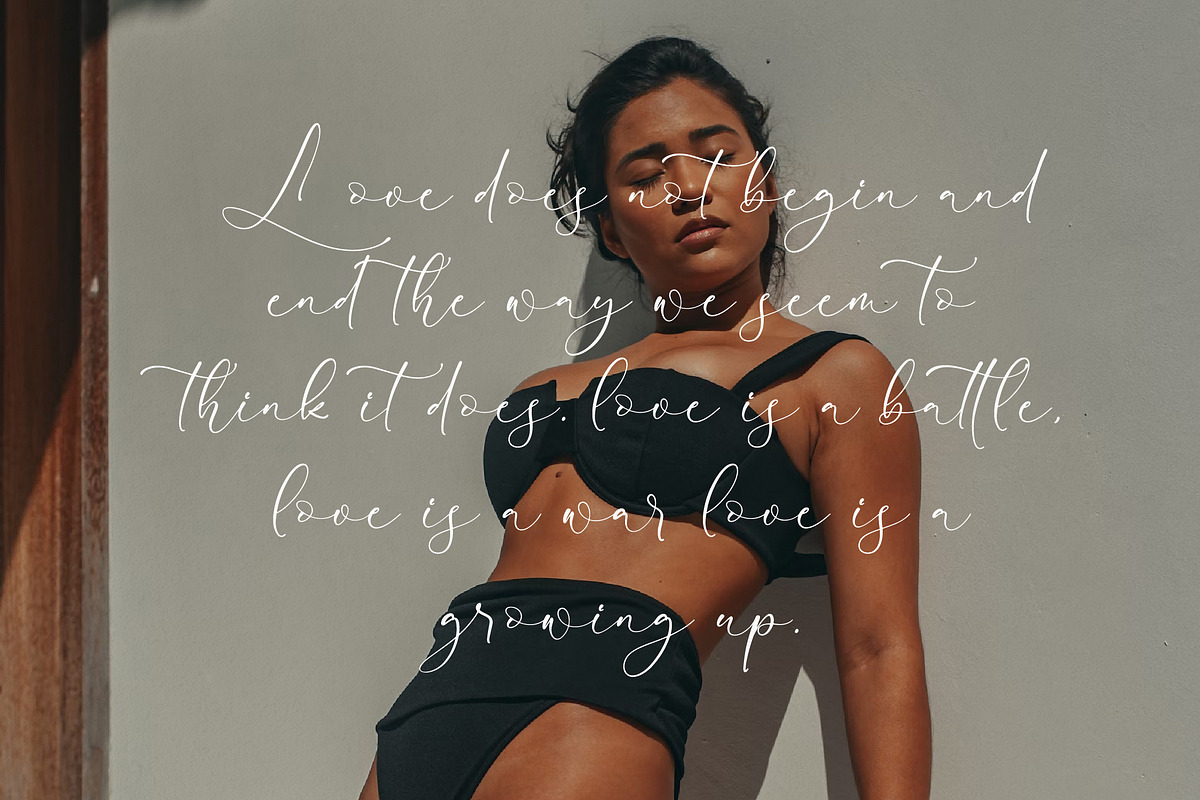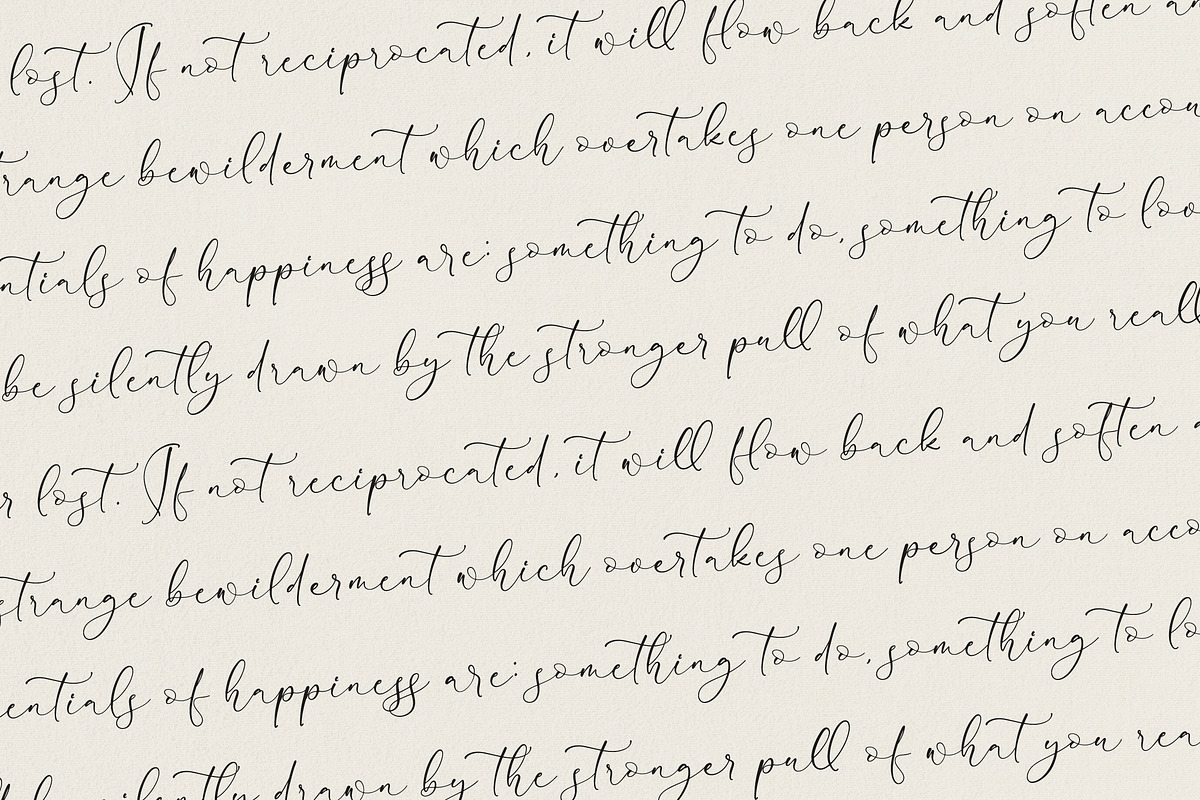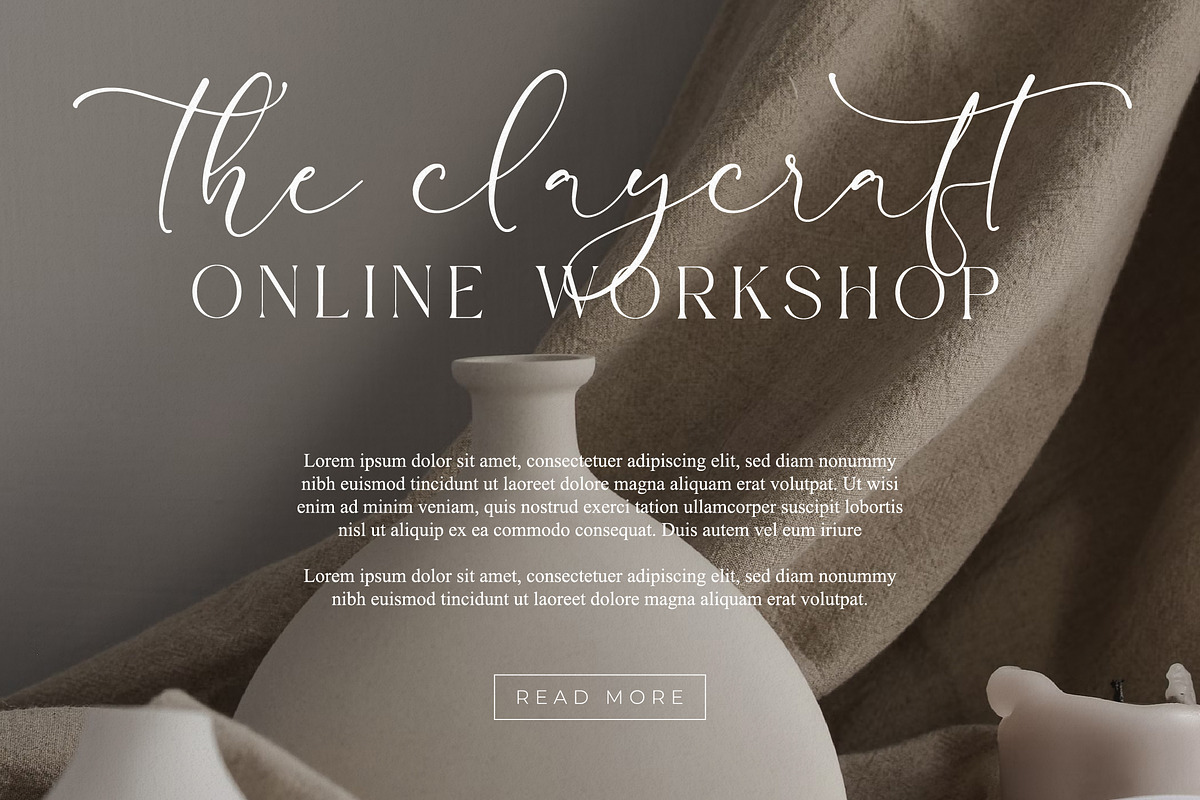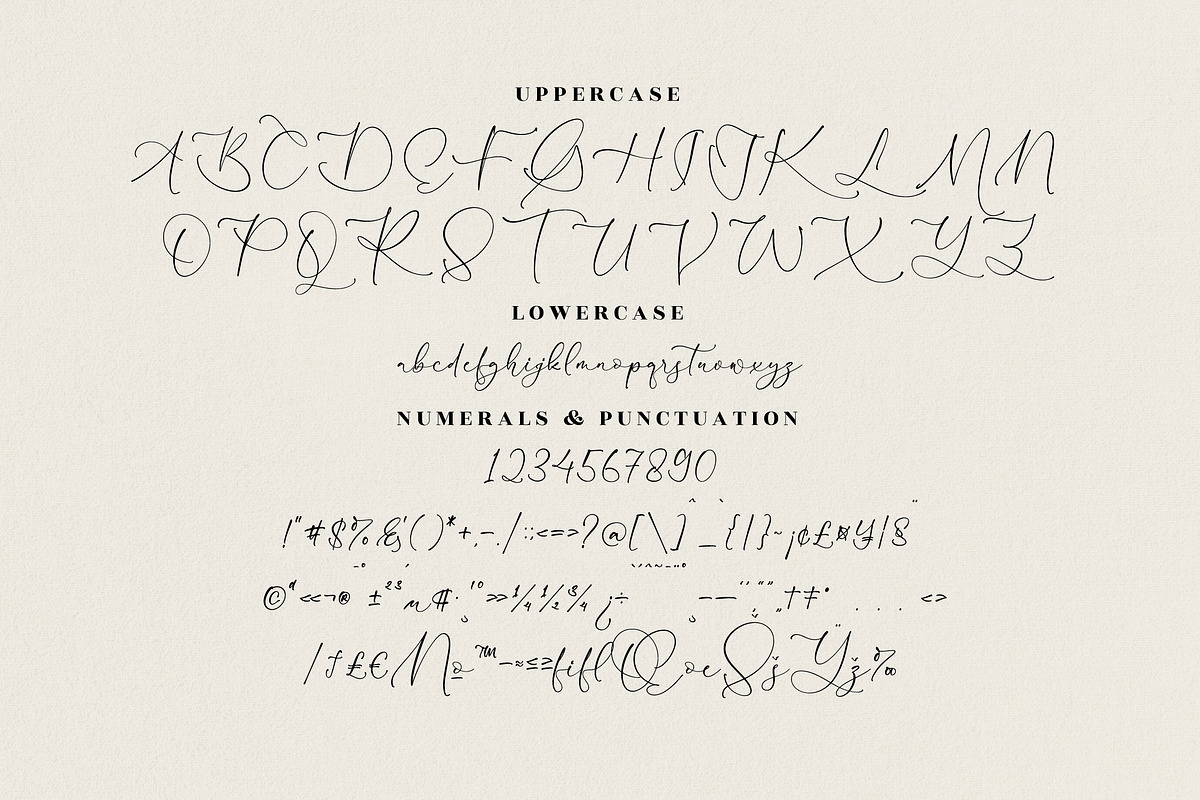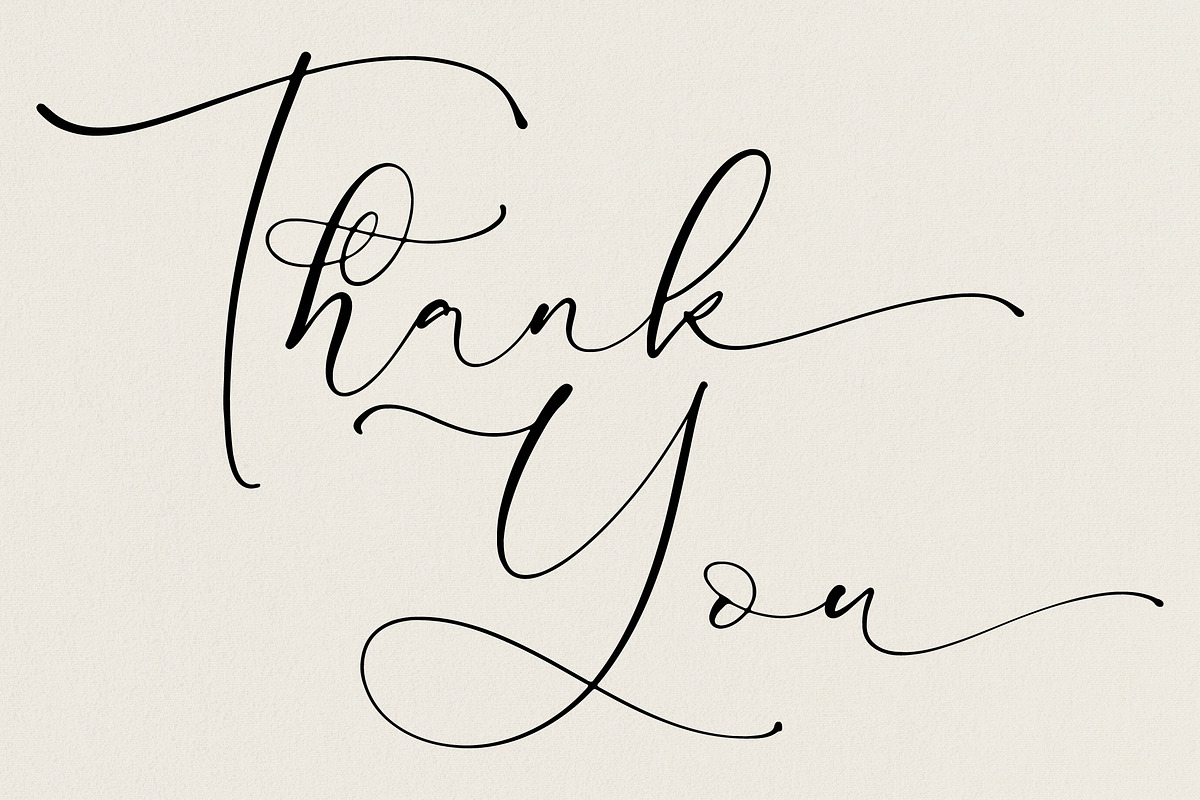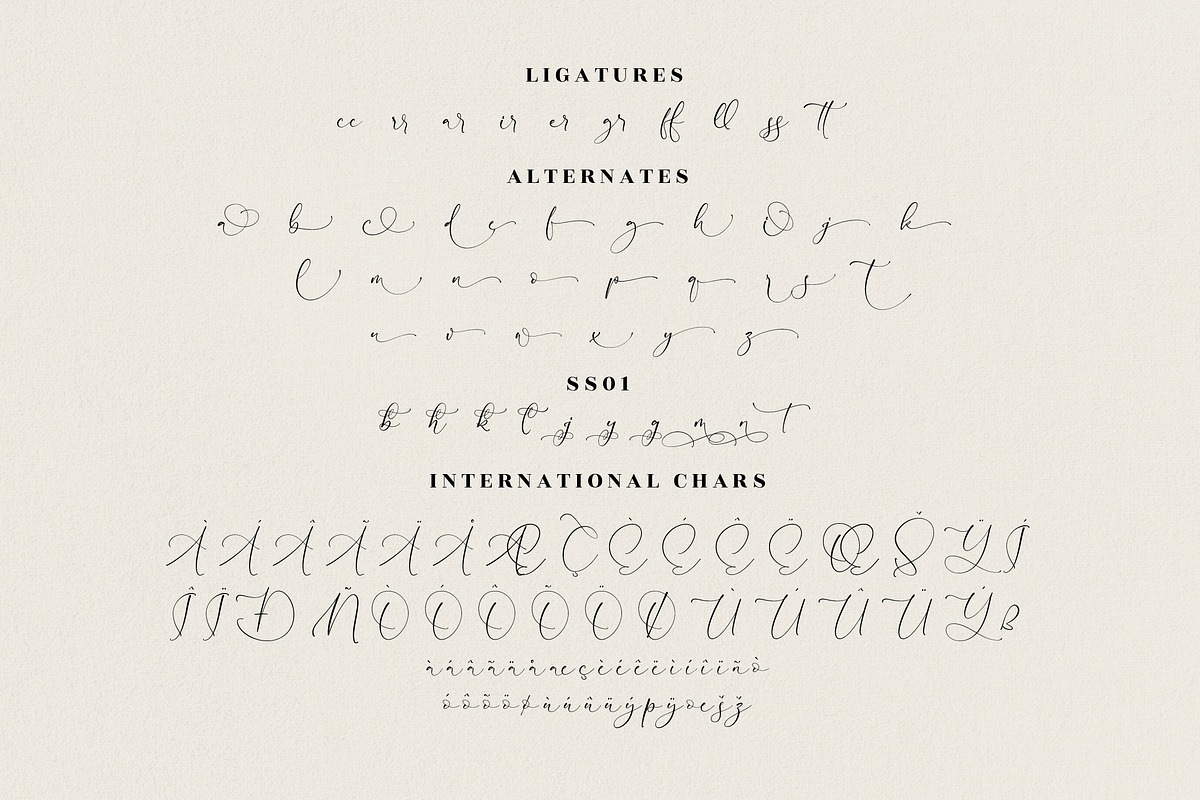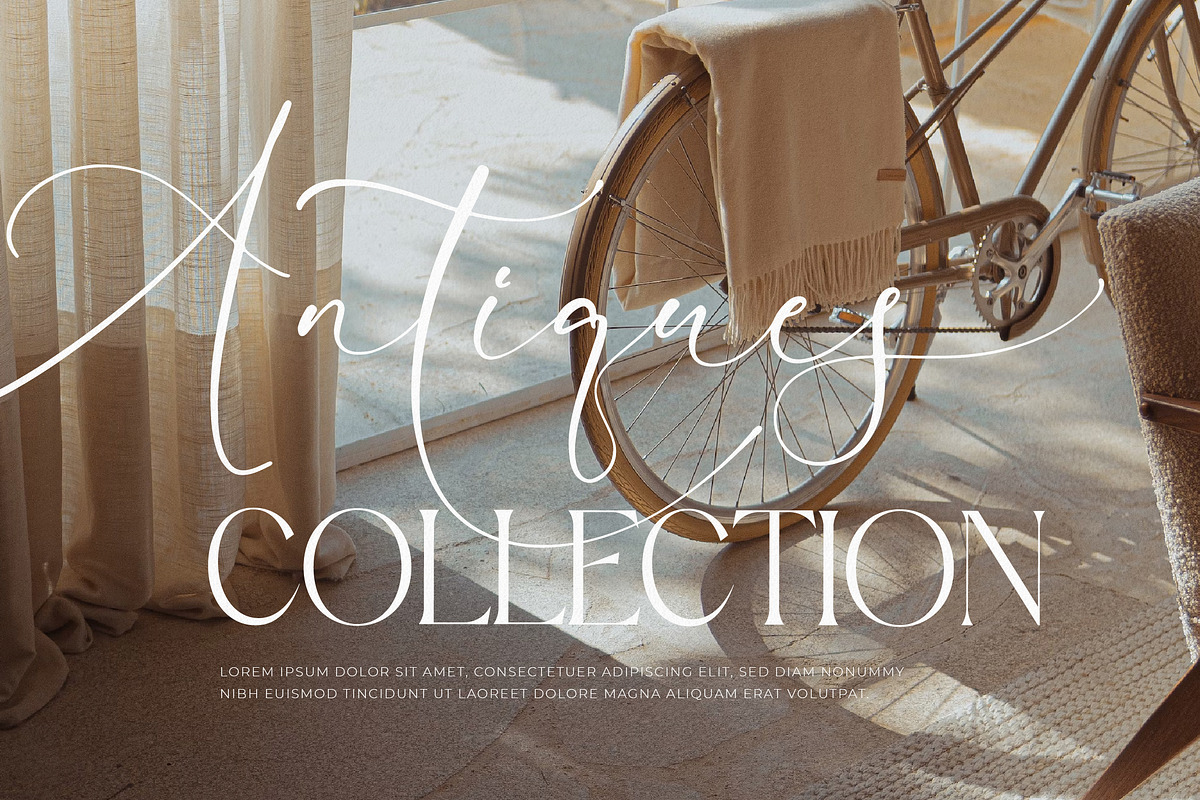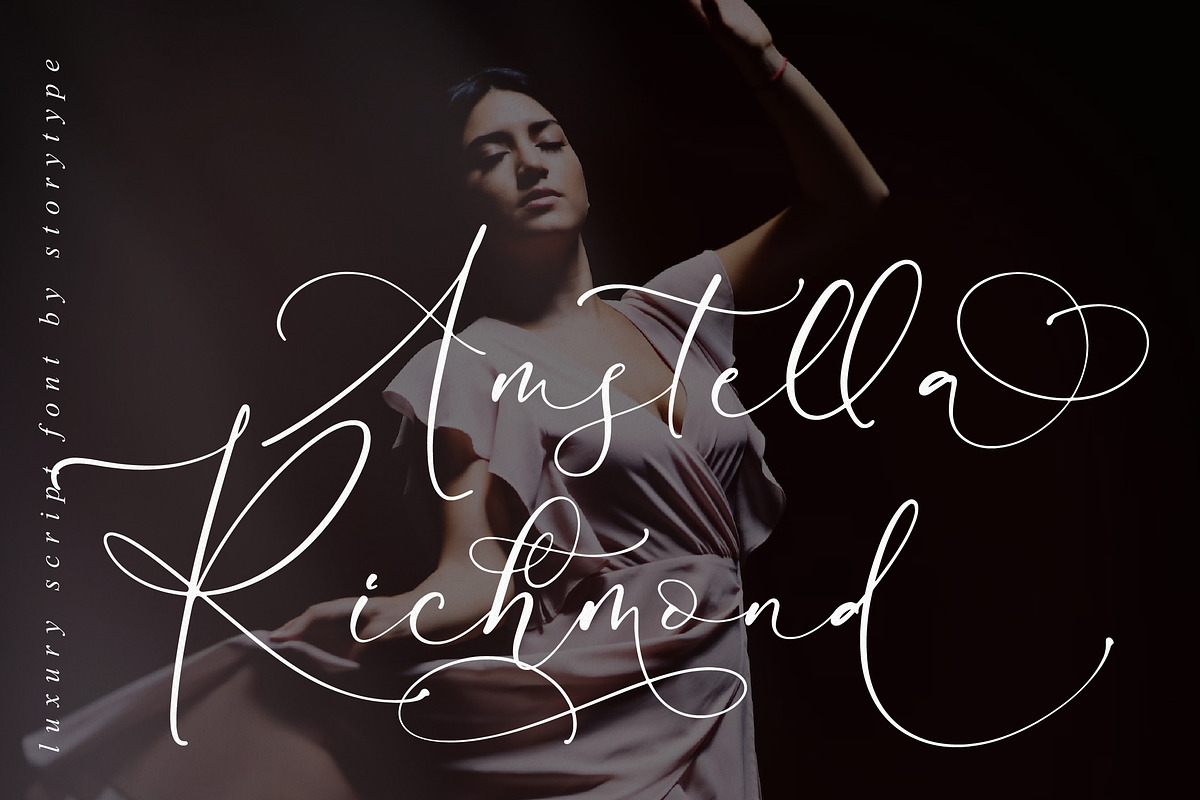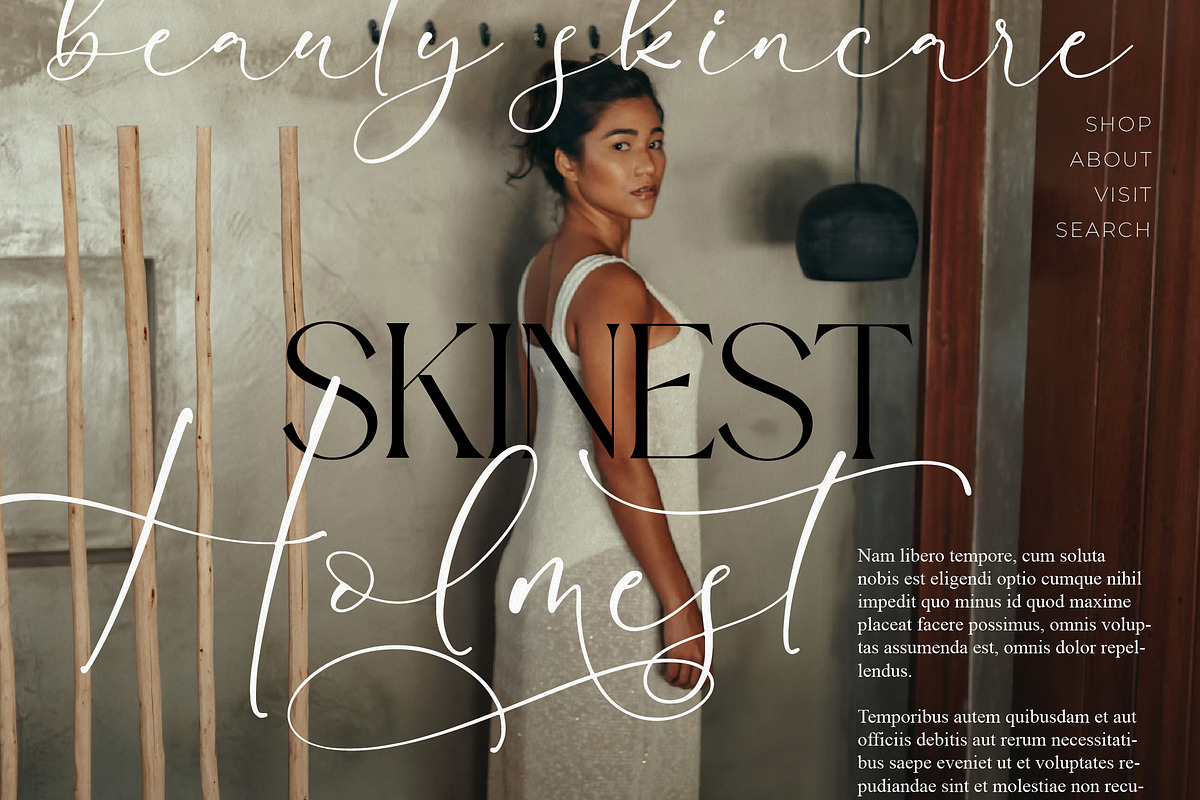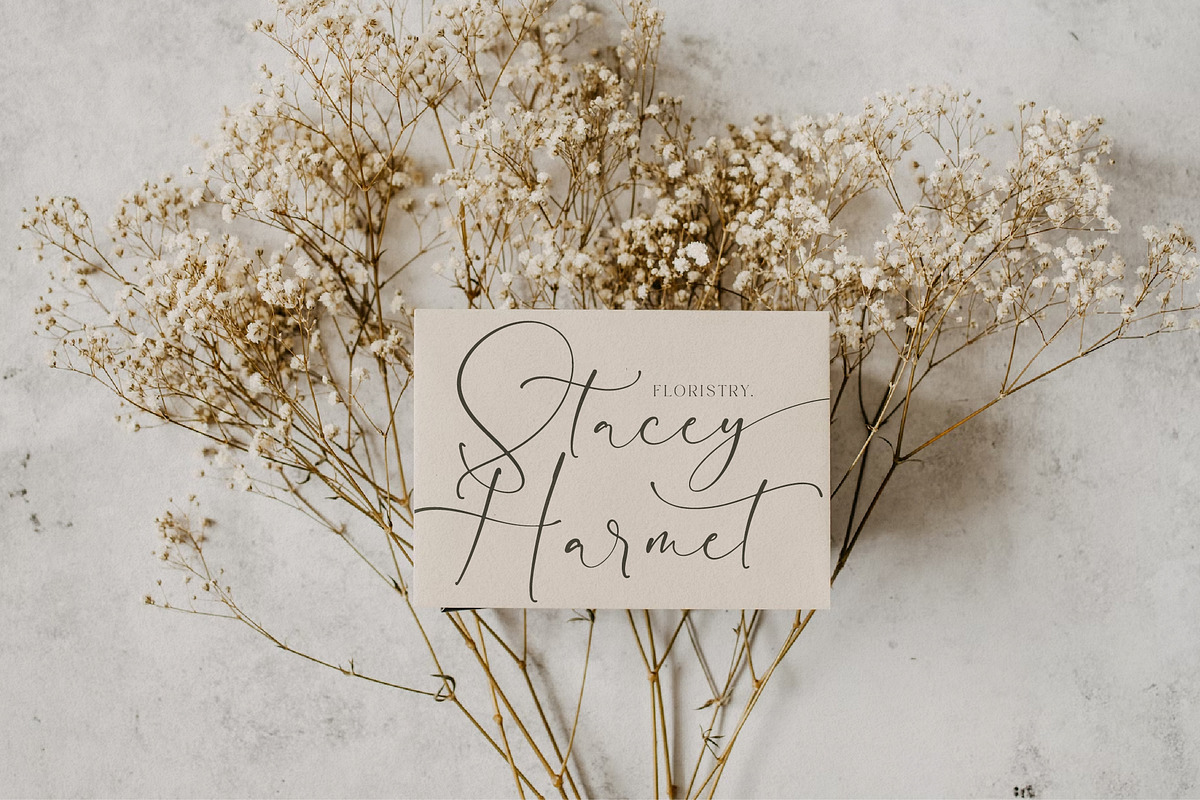
Magistica Herimattos Luxury Script
Proudly present Magistica Herimattos Luxury Script Font , created by Storytype, A luxury script that has own unique style & modern look. This typeface is perfect for an elegant & luxury logo, book or movie title design, fashion brand, magazine, clothes, lettering, quotes, and so much more.